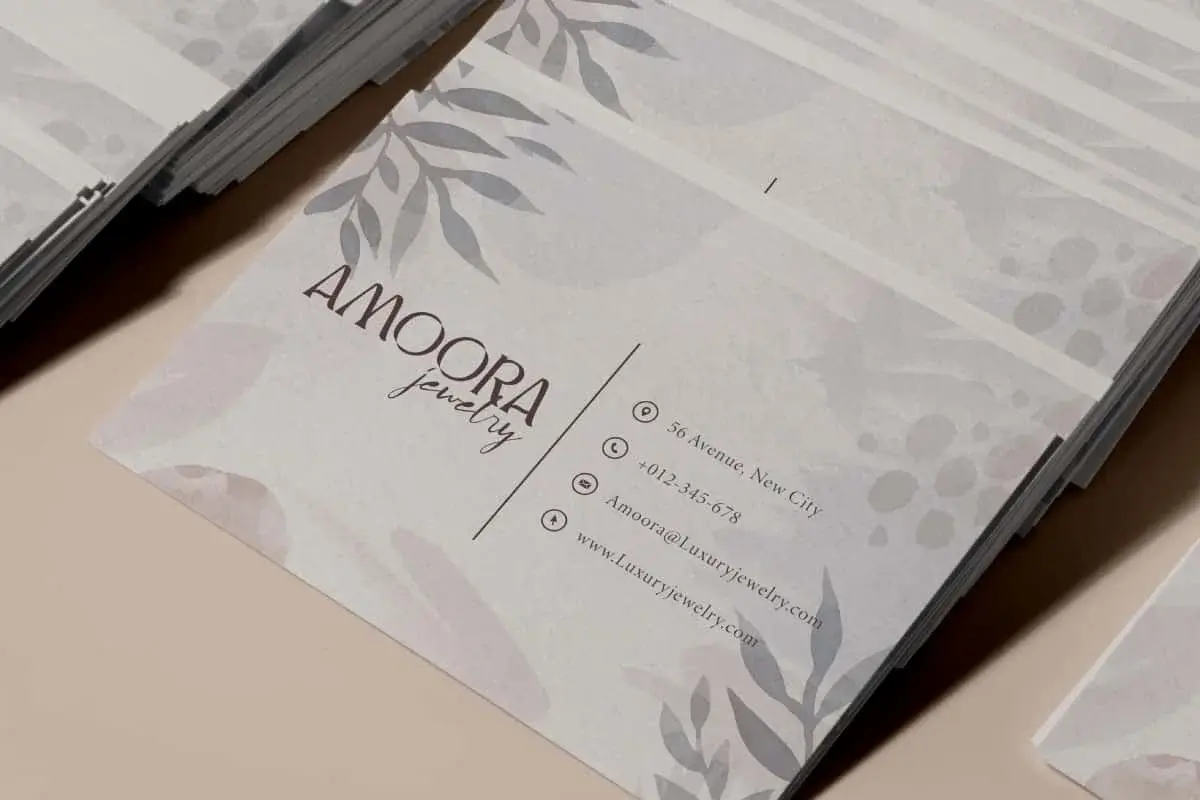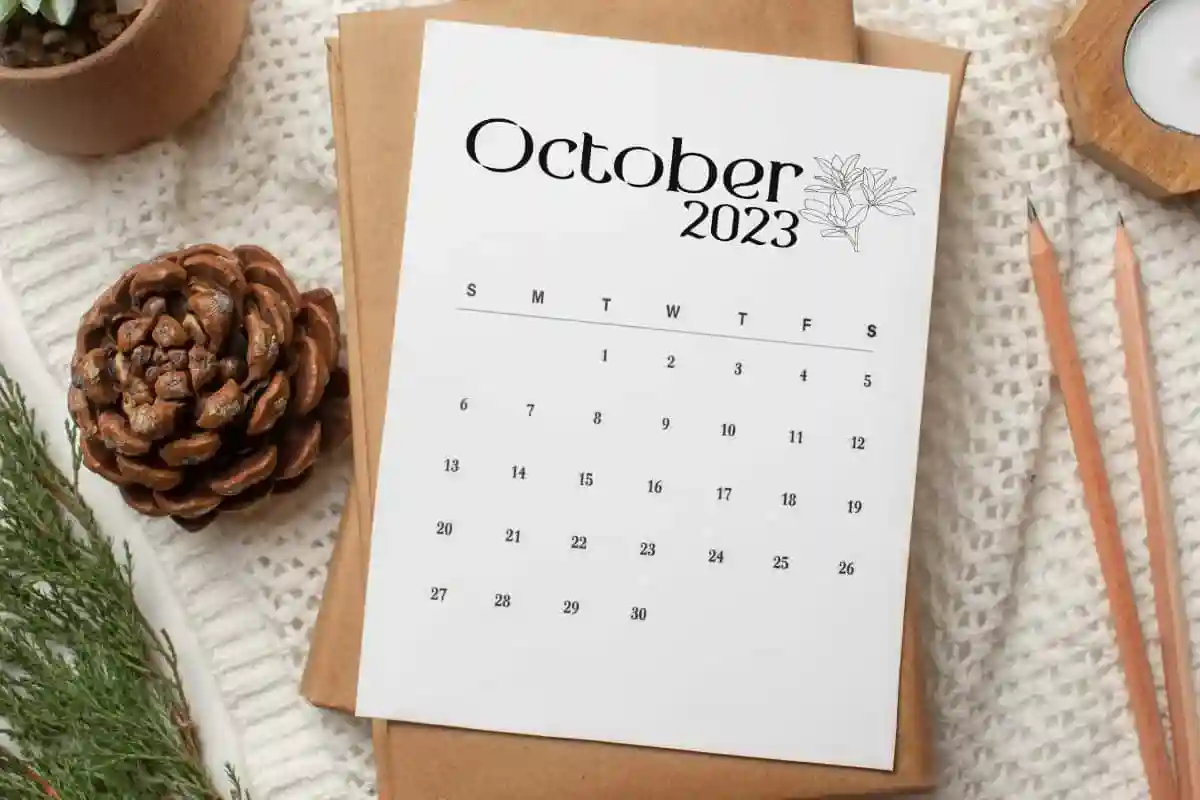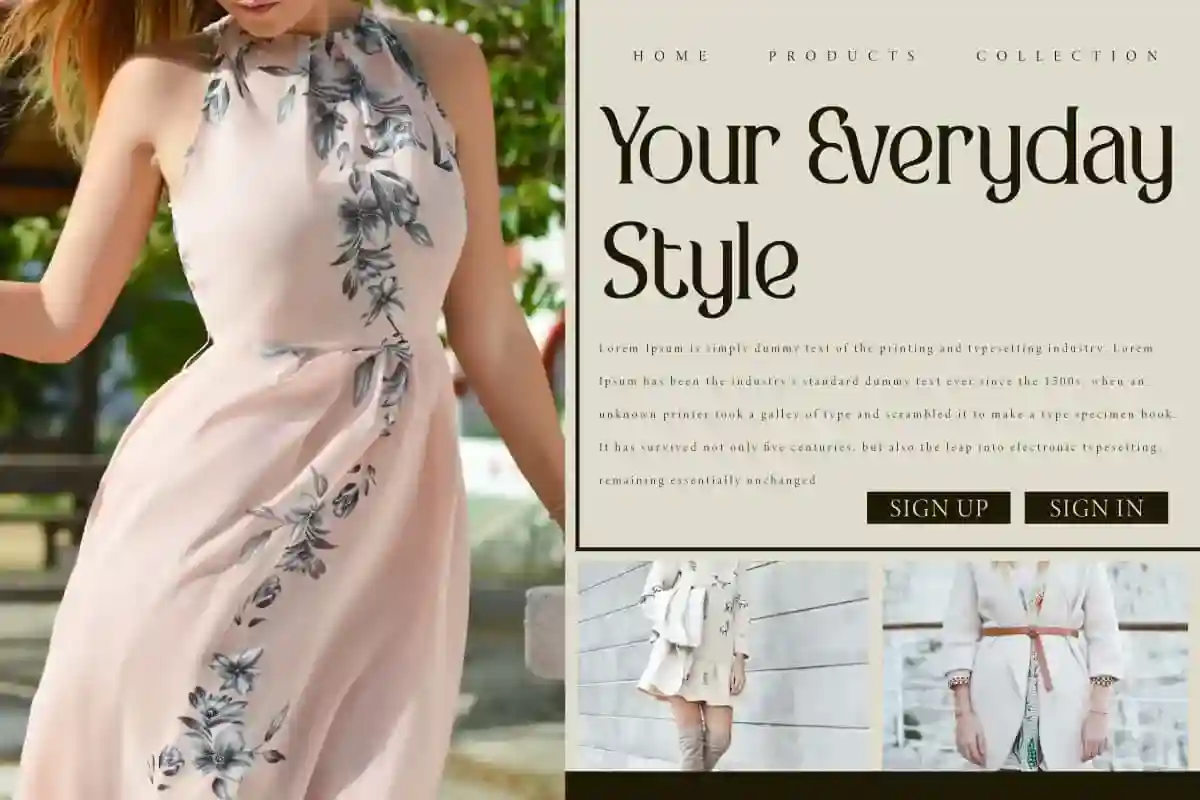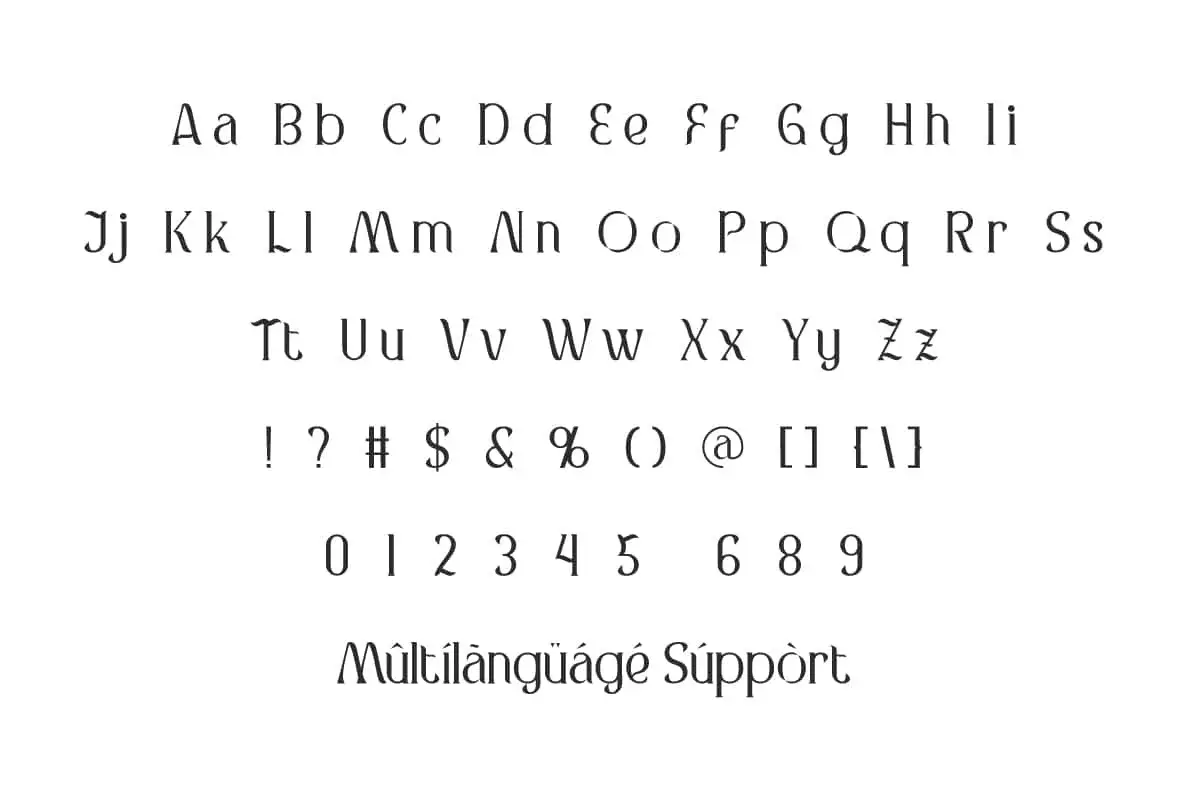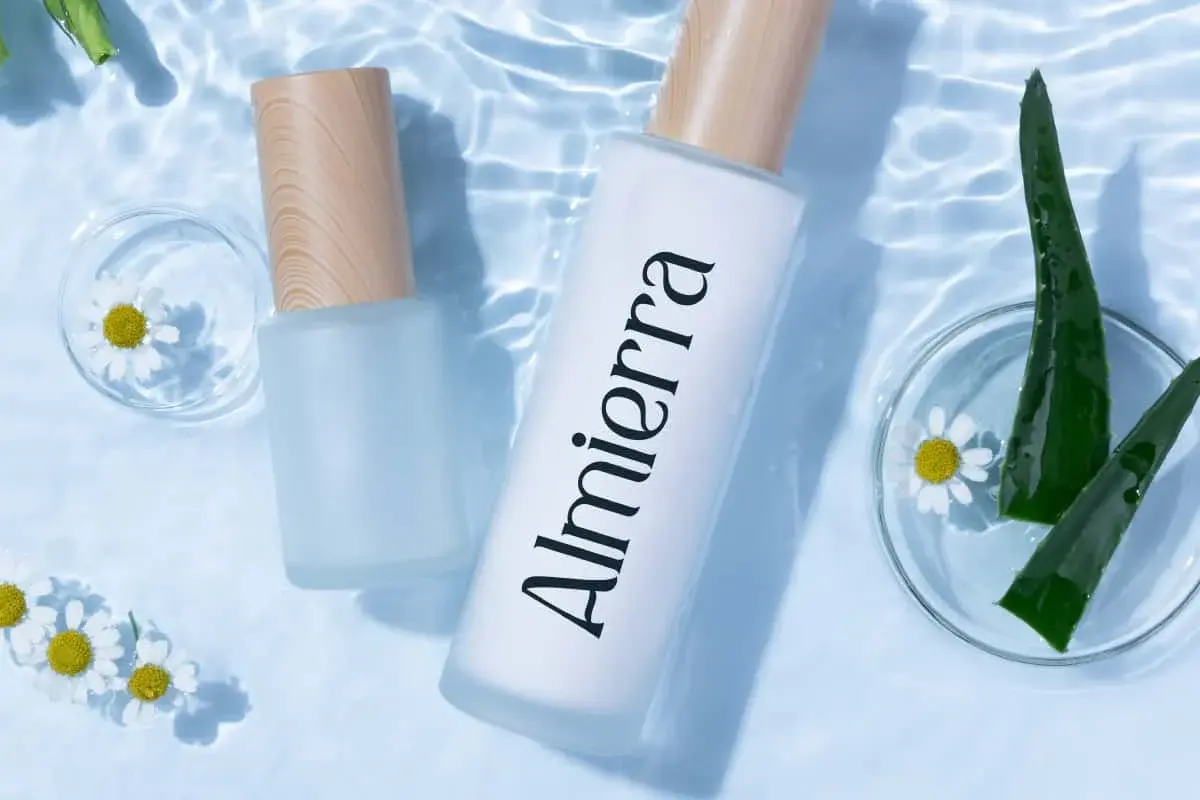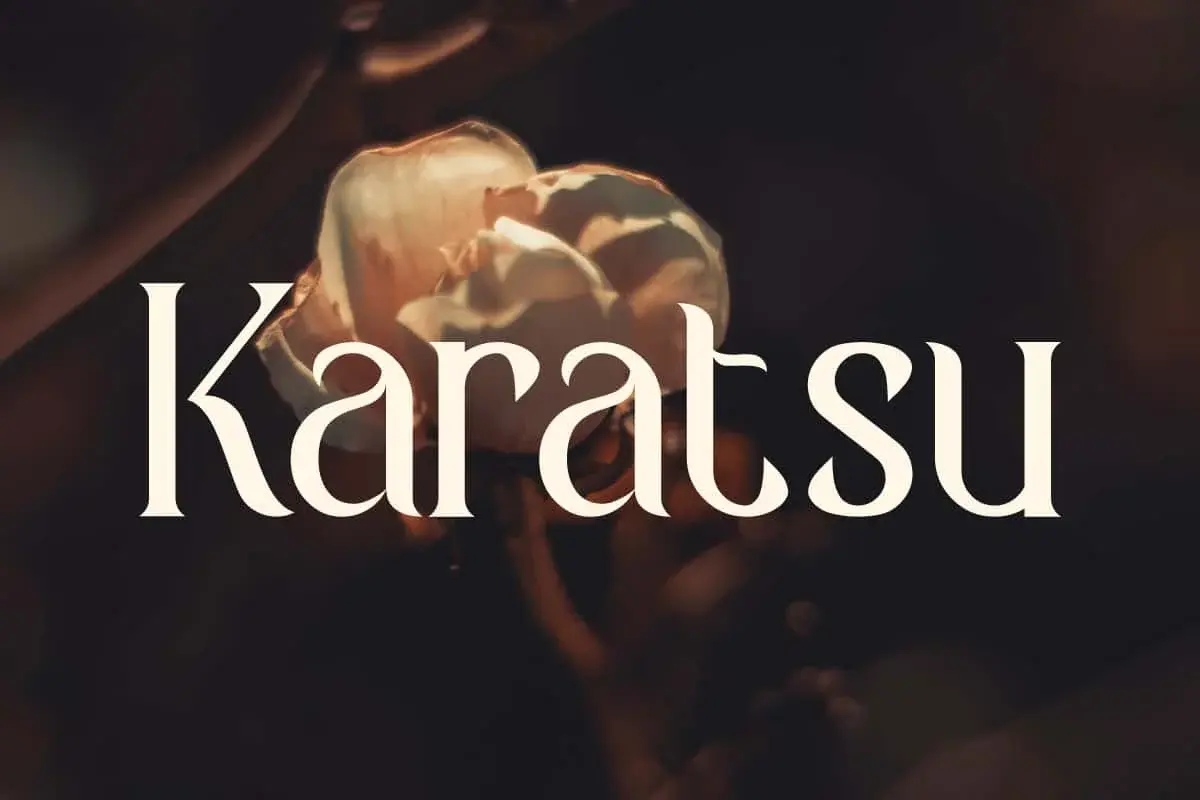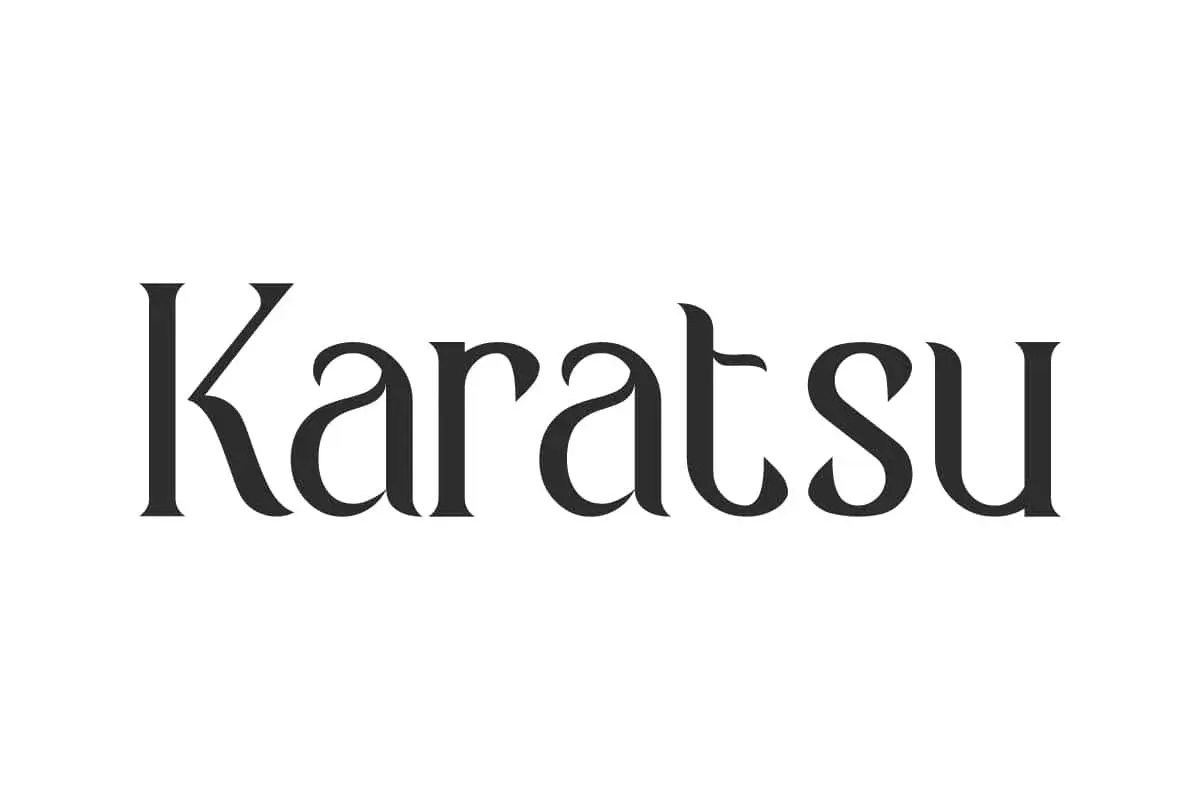
Karatsu Font is a captivating font with beautiful typographic harmony for ad branding, beauty product, branding logo, etc.
Karatsu Font is a fashionable modern serif font that offers a new exclusive looks. Typeface with elegant & stylish letter character shapes. This font collection covers all the beauty that exists and is certainly not to be missed. It is perfect for various designs such as billboards, business card, headers, labels, product packaging, stationery, tabloid, website, etc.
Karatsu Font contains a complete set of basic Uppercase and Lowercase characters, Numbers, Symbols and Punctuation. Apart from that, the thickness of the lines plays an important role in supporting the appearance of the font. Whether for personal or commercial use, it can serve your purpose well. Open your heart now and fall in love with this font! Ideal for boutique, furniture, handicraft, jewelry, skincare, and anything that requires a professional and impressive font.